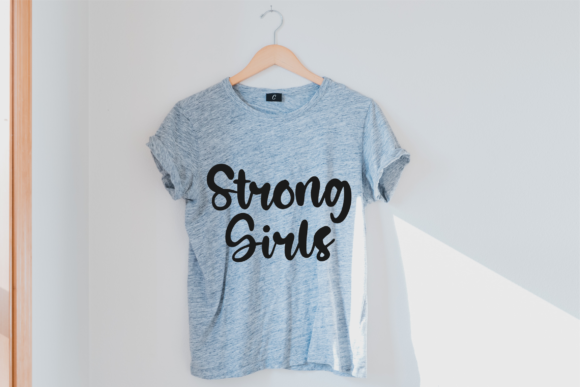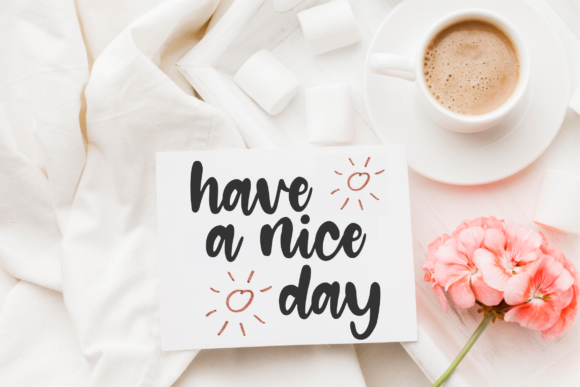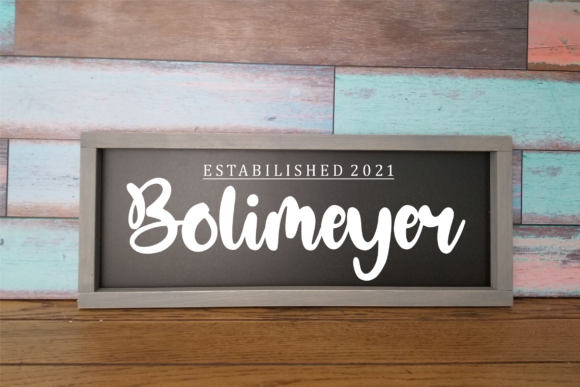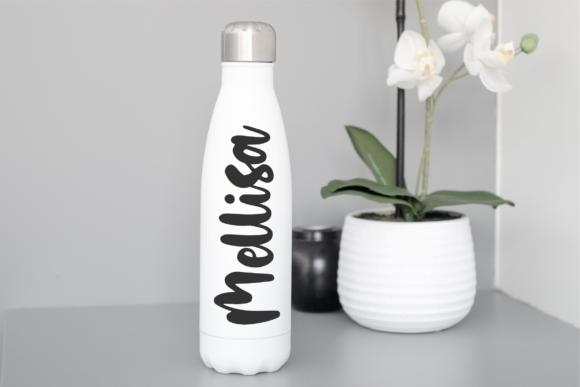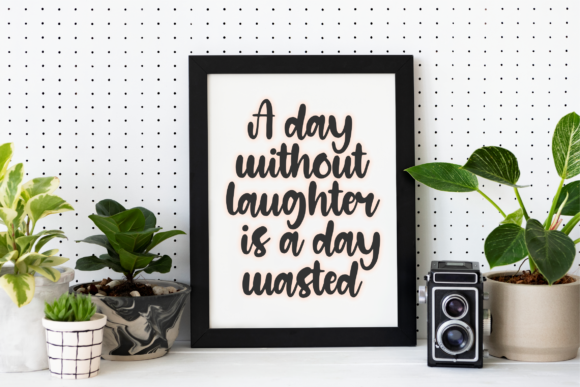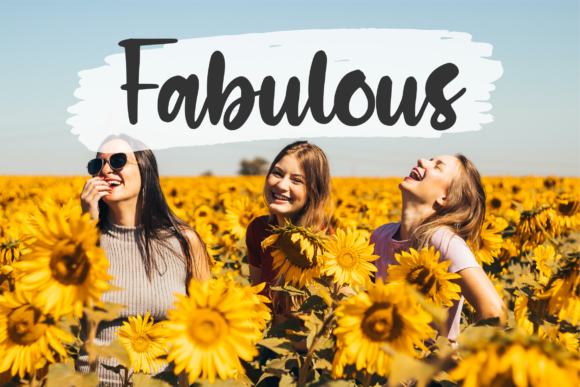
Introduction to Enlightica Font
Have you ever been working on a creative project, pouring your heart and soul into it, only to find the perfect font eludes you? That’s where the Enlightica Font comes in – a beautiful and refined script font that adds a touch of elegance to any design. Its classy, modern look makes it perfect for logos, branding, and invitations, but its versatility also makes it suitable for social media posts, stationery, and wedding designs.
| 👤 Author | qwrtypefoundry |
Key Features of Enlightica Font
- High-quality design resource ideal for creative projects, offering a unique and elegant aesthetic.
- Characterized by its clean and minimalist design, making it an excellent choice for modern and creative projects.
- Perfect for use in graphic design, digital art, and other creative endeavors, Enlightica Font is a valuable addition to any design resource library.
Honest Review: Enlightica Font
As a designer, I’m always on the lookout for high-quality design resources that can elevate my creative projects. Recently, I stumbled upon the Enlightica Font, and I must say, it’s been a game-changer for me.
What works well: ✨ The Enlightica Font has a clean and modern design that’s perfect for digital applications. The transparent background option allows for seamless integration with any background image or color, giving me endless possibilities for creative expression. The high-quality vector files make it easy to scale up or down without compromising on quality.
What could improve: ⚠️ While the Enlightica Font is a great resource, I wish it had more font weights and styles to choose from. Additionally, the free download limit is a bit restrictive, but I understand that it’s a free resource, and I’m grateful for it nonetheless.
Overall, I’m thoroughly impressed with the Enlightica Font, and I highly recommend it to anyone looking for a reliable design resource for their creative projects. The high-quality design and transparent background options make it a versatile tool that can be used across various mediums.
- Clean and modern design
- Limited font weights and styles
How to Use Enlightica Font
The Enlightica Font is a high-quality design resource ideal for creative projects that require a unique and modern touch. Its transparent background and stylish design make it an excellent choice for designers and non-designers alike.
Tips for Getting the Most Out of Enlightica Font
To get the most out of the Enlightica Font, use it in combination with other high-quality design resources, such as graphics and textures. Experiment with different font sizes and styles to create a unique and eye-catching design.
The Enlightica Font is ideal for a variety of creative projects, including:
- UI/UX design